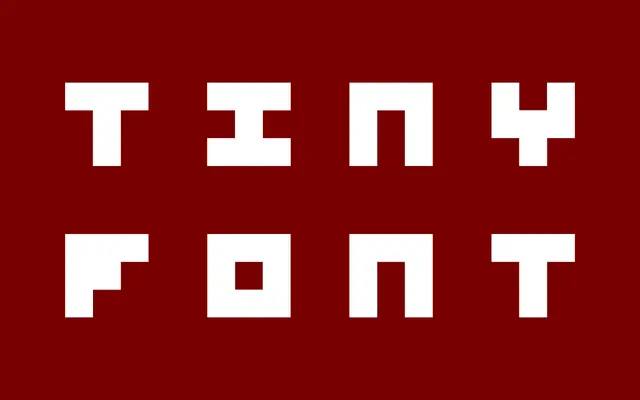
BD Tinyfont
A pixel typeface constructed on a 3x3 grid, originally designed for Büro Destruct in 2005 and updated with a slightly extended glyph set in 2023.
Built on the smallest practical pixel grid, it pushes legibility to its absolute limit while remaining functional for short-form display text. Originally conceived by Bataais for Büro Destruct, the file weighs in at just six kilobytes. Free for personal use, with a commercial licence available for professional projects.
A pixel typeface built on a 3x3 grid, placing it firmly in the display category as a bitmap/pixel subcategory. Its extreme grid constraint makes it unsuitable for body text and characteristic of novelty display use.